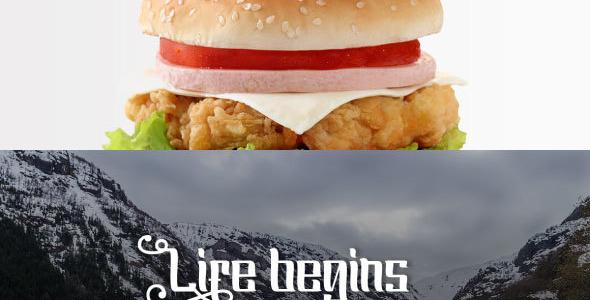
Oliver Typeface
by ShowUp! Typefoundry in Fonts Display Oliver is multi-purpose and ready to make a statement by adding an elegant and unique talent for the next design project. Oliver can be used for various purposes such as posters, logos, t-shirts, signage, businnes card, magazines, book covers, wedding invitations, greeting cards etc. including initial and terminal letters, alternates, ligatures and multiple language support. Files included: Oliver.otf Oliver.ttf Oliver Ligature.otf Oliver Ligature.ttf To enable the OpenType Stylistic alternates, you need a program that supports OpenType features such as Adobe Illustrator CS, Adobe Indesign & CorelDraw X6-X7, Microsoft Word 2010 or later versions. Thank you for your purchase! Follow my Instagram for update Font and Freebies https://instagram.com/aulya_rn Thanks You!